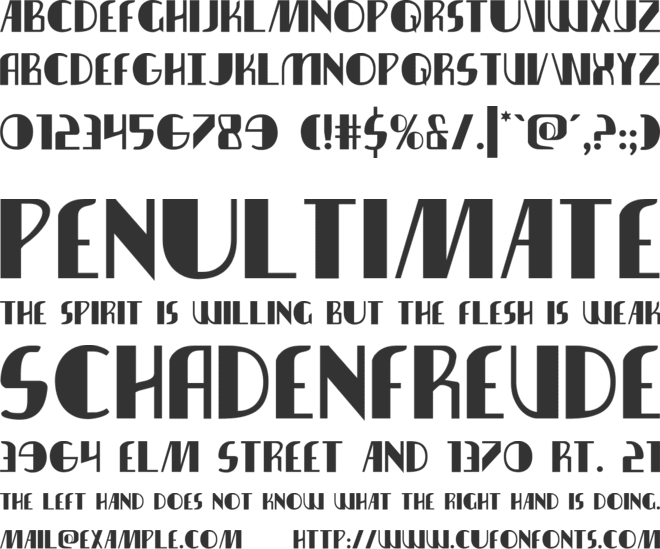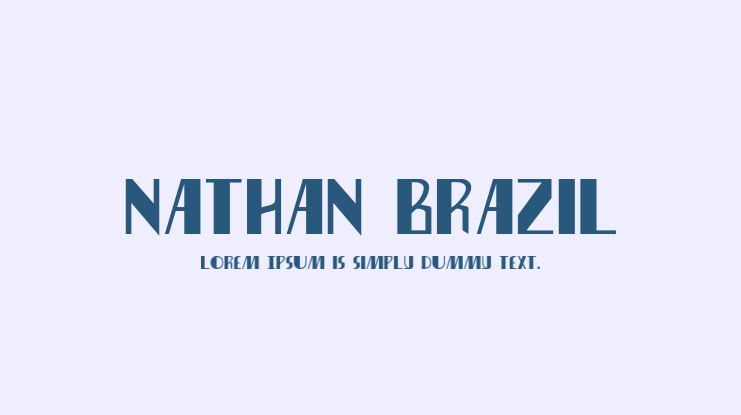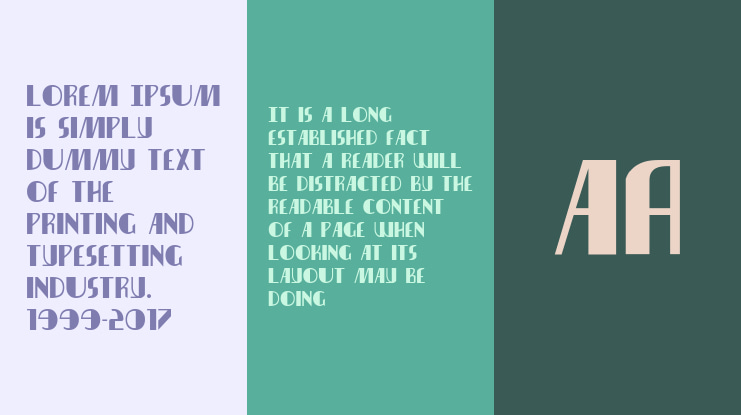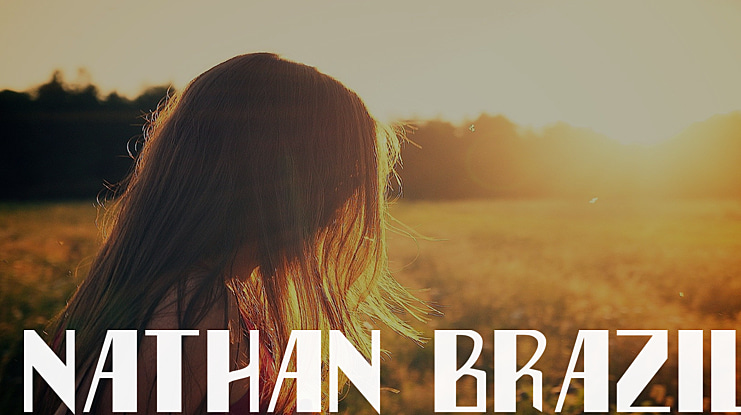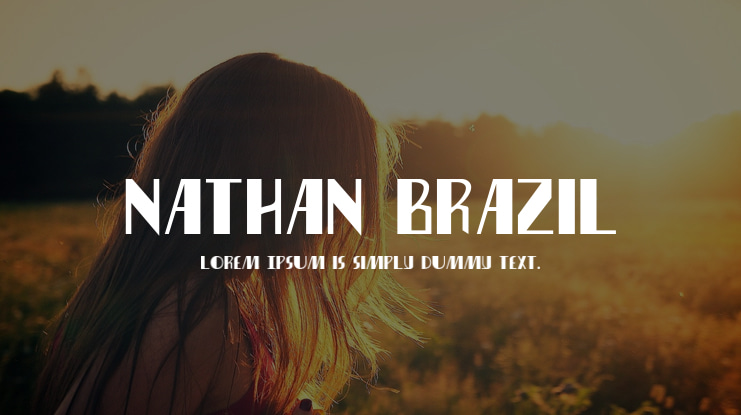
Nathan Brazil Font Family
Nathan Brazil is a deco font with slick lines and pleasing proprotions, and a certain touch of that old-style feel. The font comes with a complete Latin character set (including the Euro) and several alternate letter forms between the upper and lower cases.
Version 1.1 widens the spacing between words